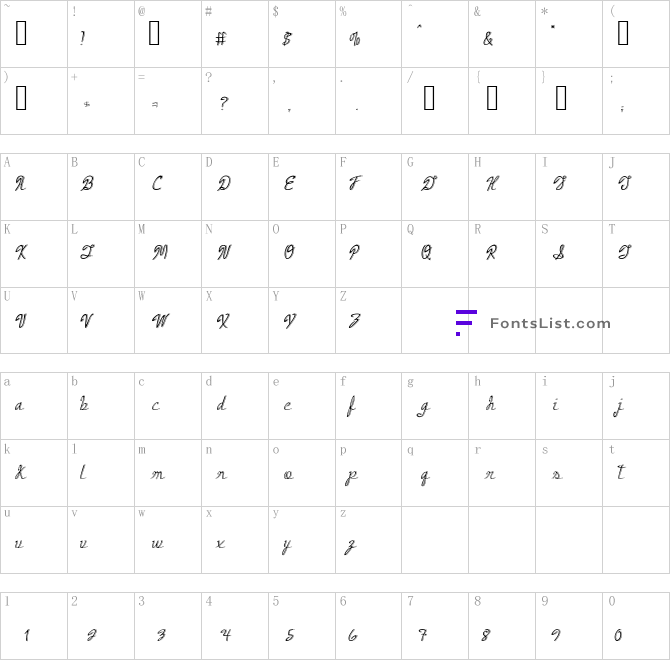
- Font Name:Armand_Cocktail
Armand_Cocktail.ttf is a very beautiful artistic font, Armand_Cocktail.ttf is widely used in the design and printing of various books and pictures,Armand_Cocktail.ttf has a strong visual impact,Armand_Cocktail.ttf is a commonly used font in newspapers, magazines and books, and is used in posters, e-commerce Poster design, store design, logo design, font design and other fields.Armand_Cocktail.